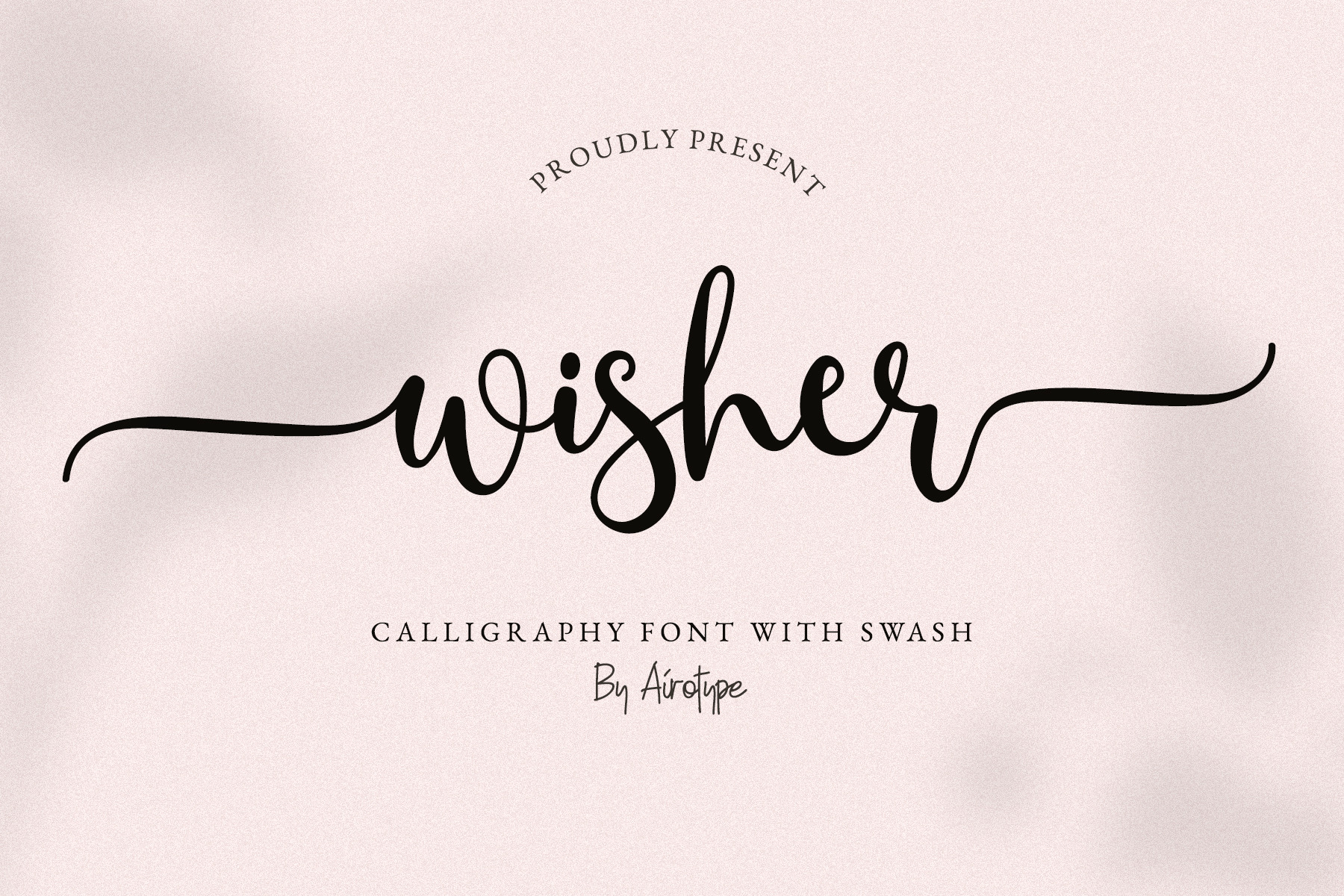
Wisher - Tail Swash Font Script
Wisher is thin and bouncy script font. It is modern, elegant, and beautiful. Wisher has tail swash in its front and back.
Wisher is beautiful script font for design with elegant and bouncy vibes, such as wedding, invitation, stickers, sublimation, cards, birthday, t-shirt design, farmhouse design, and others.
- Uppercase and Lowercase (includes swash for lowercase)
- Most Multilingual Accent